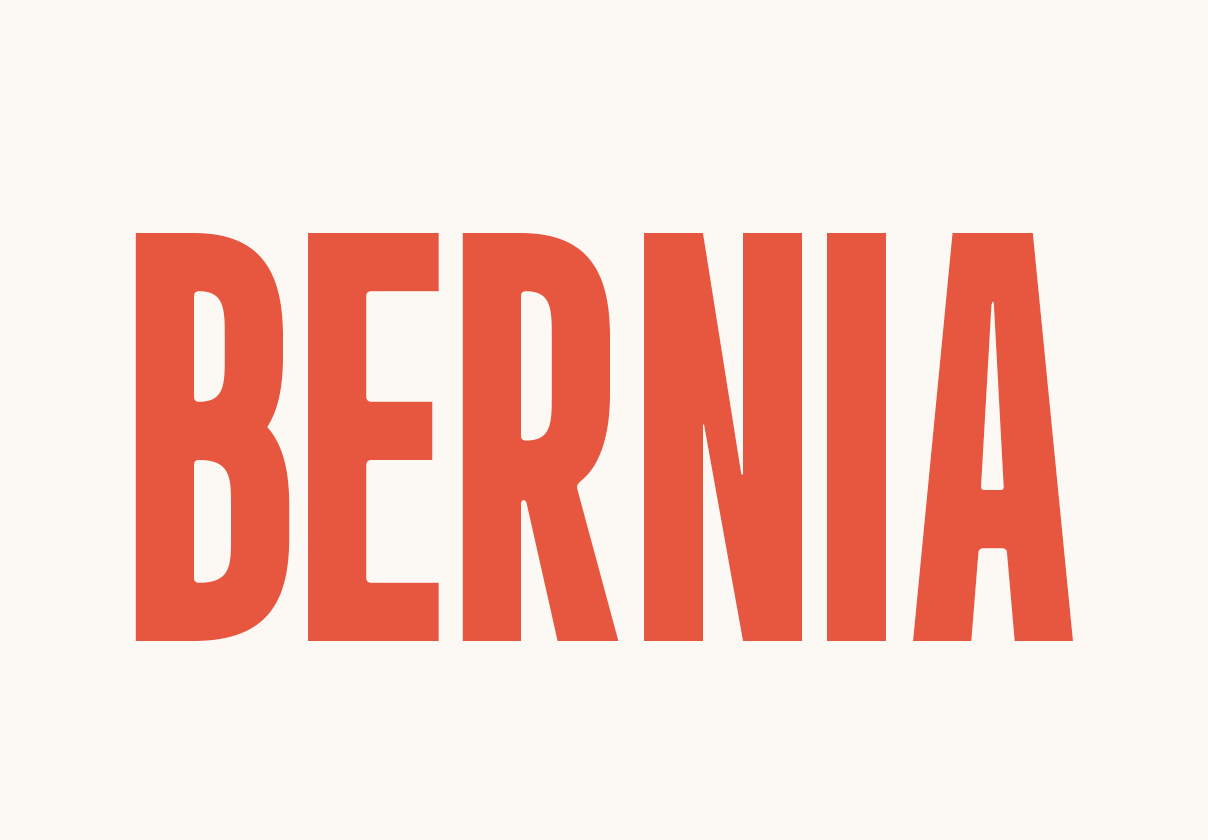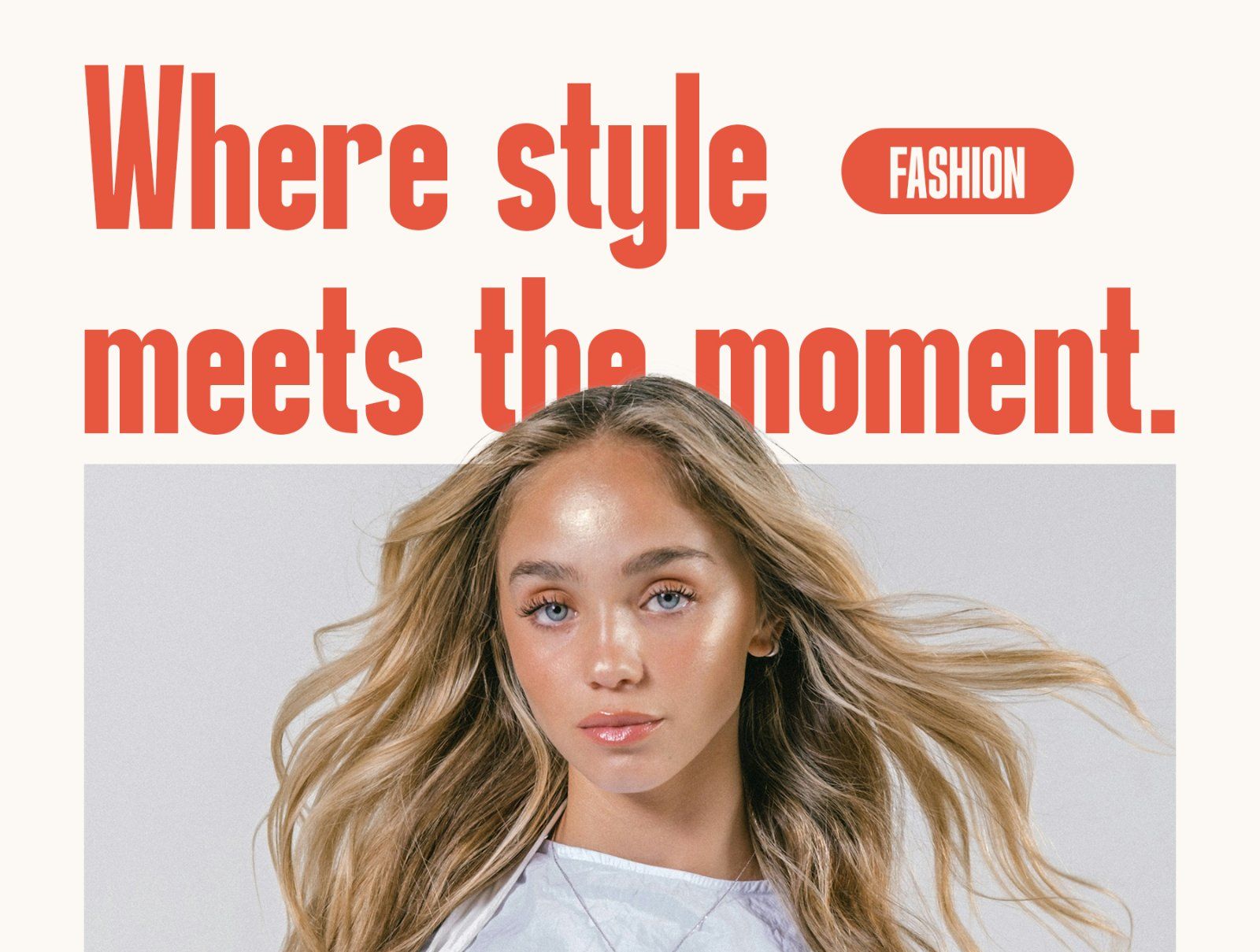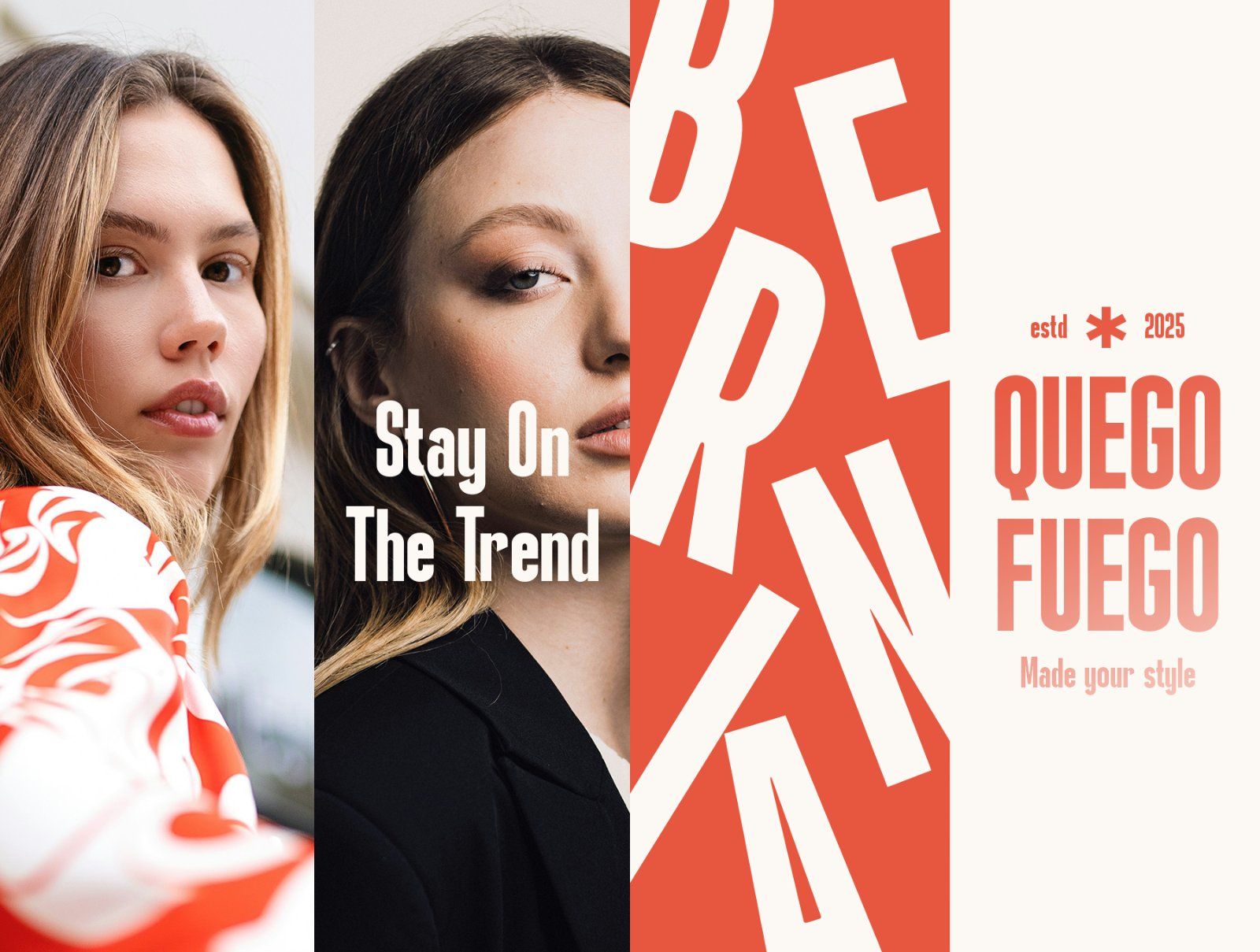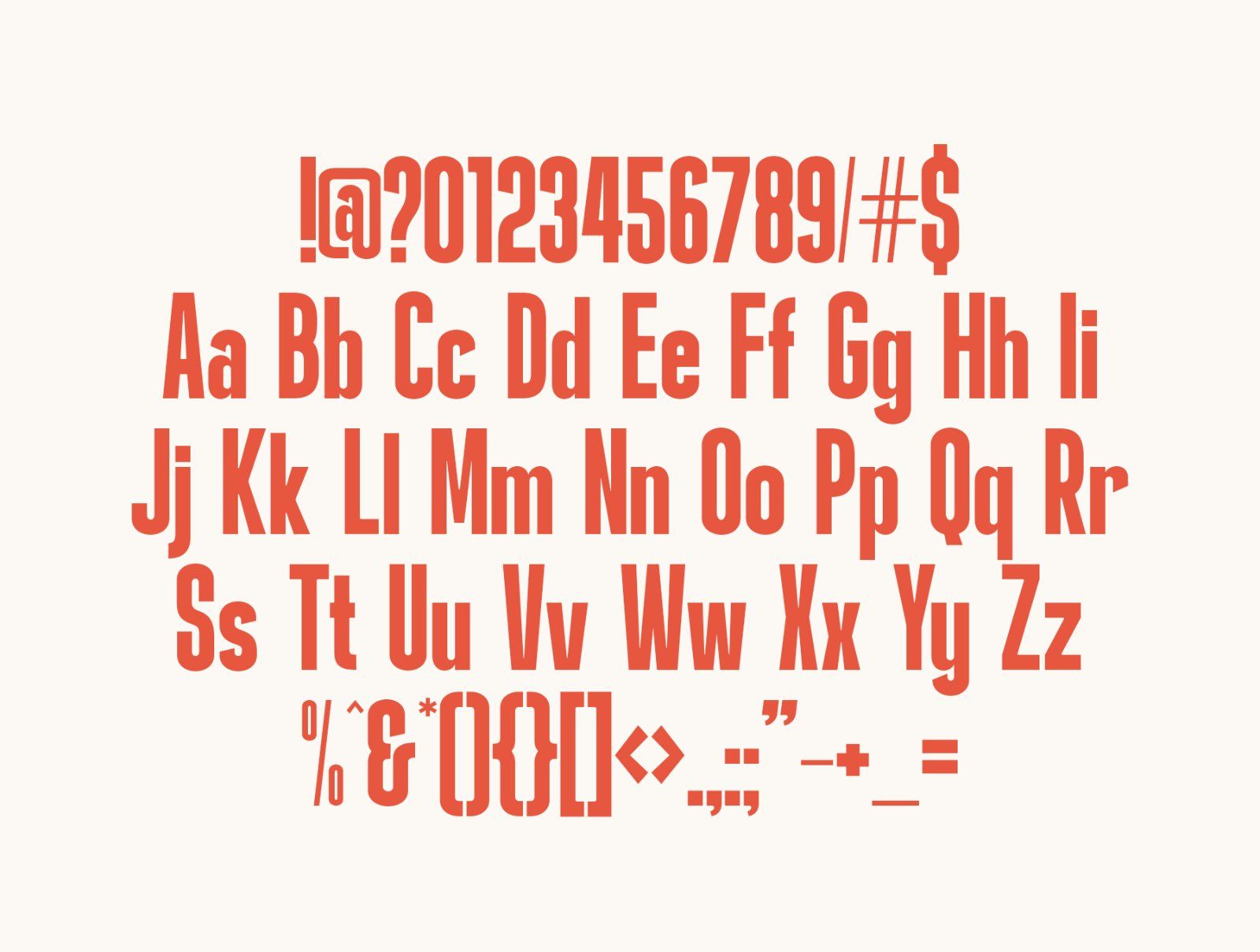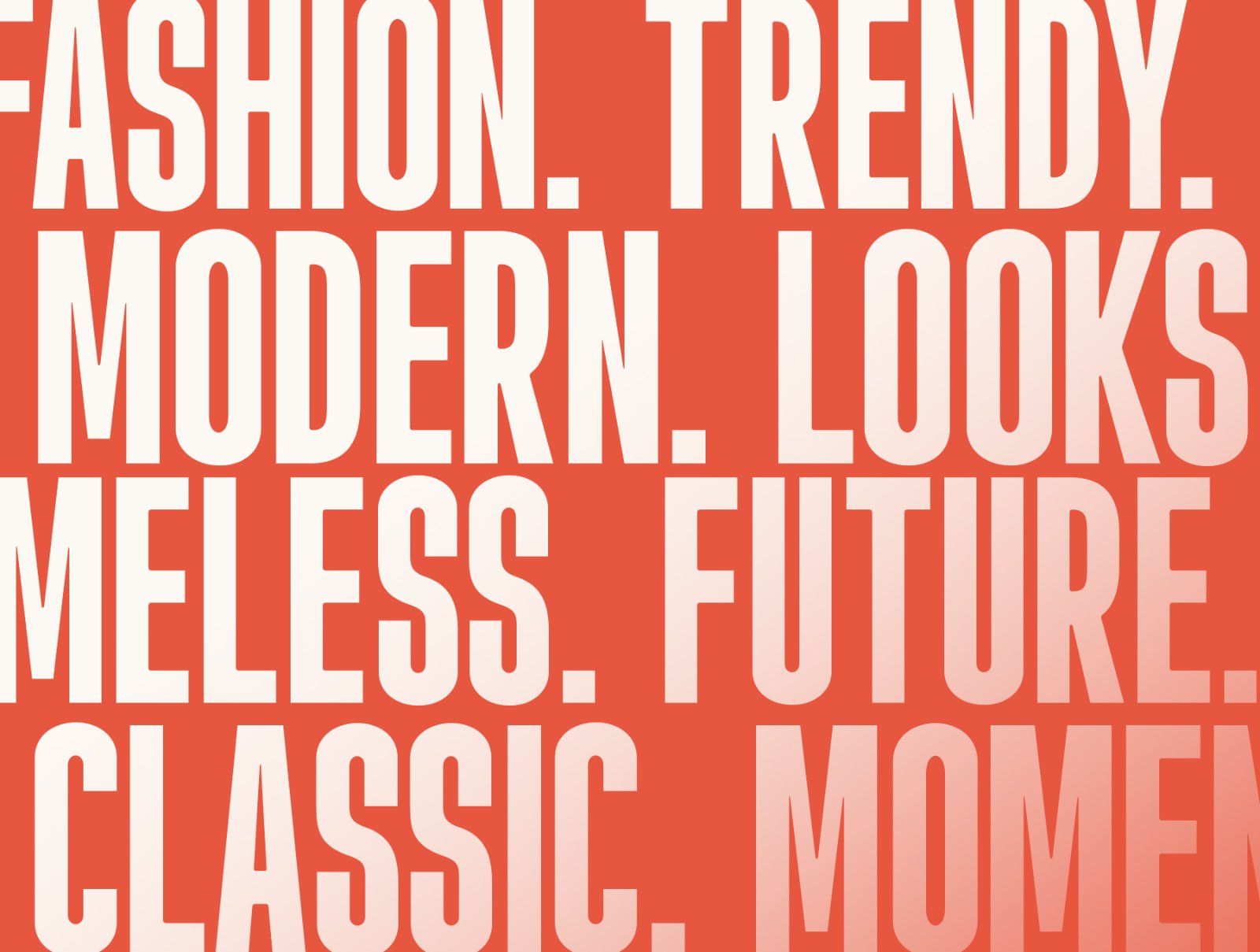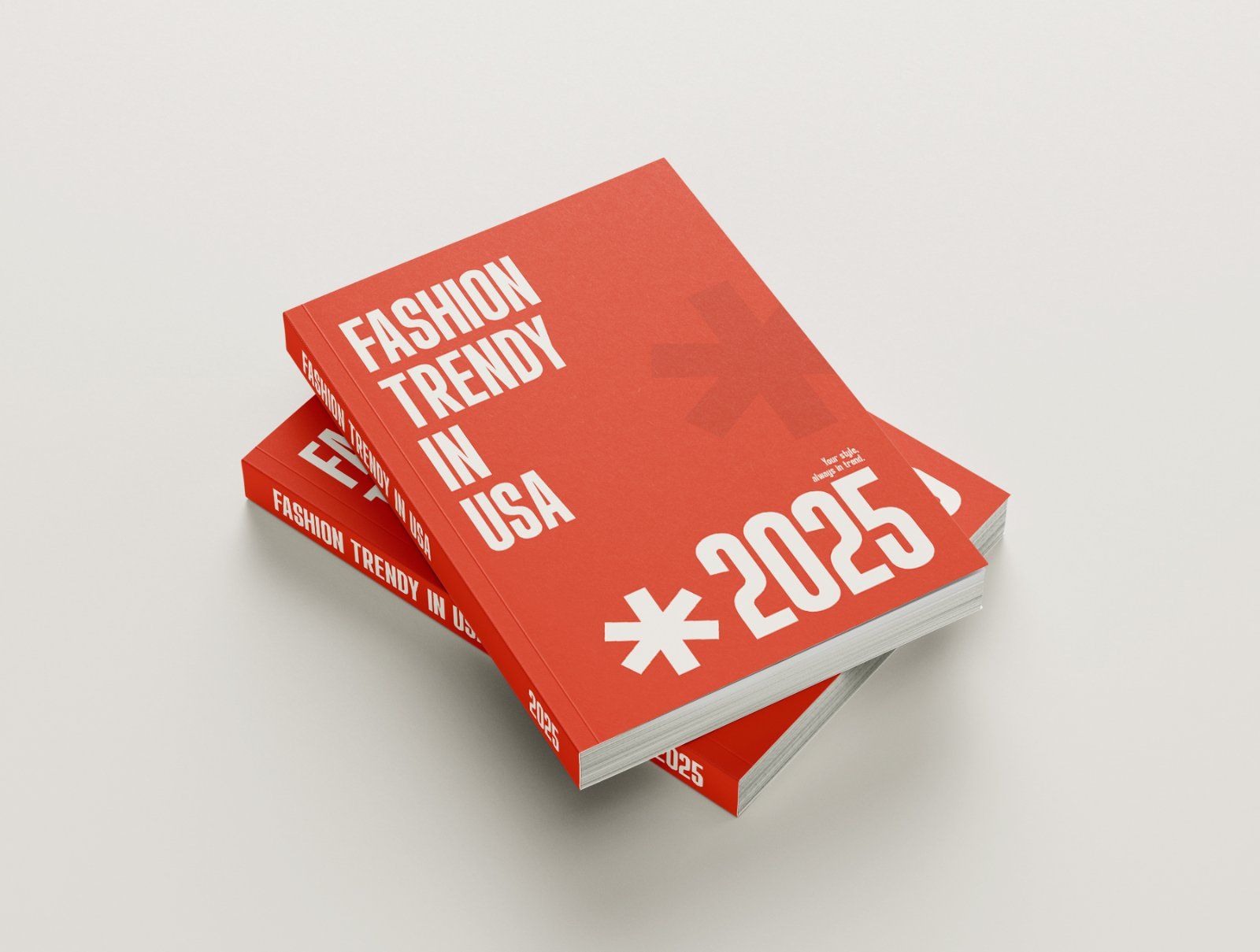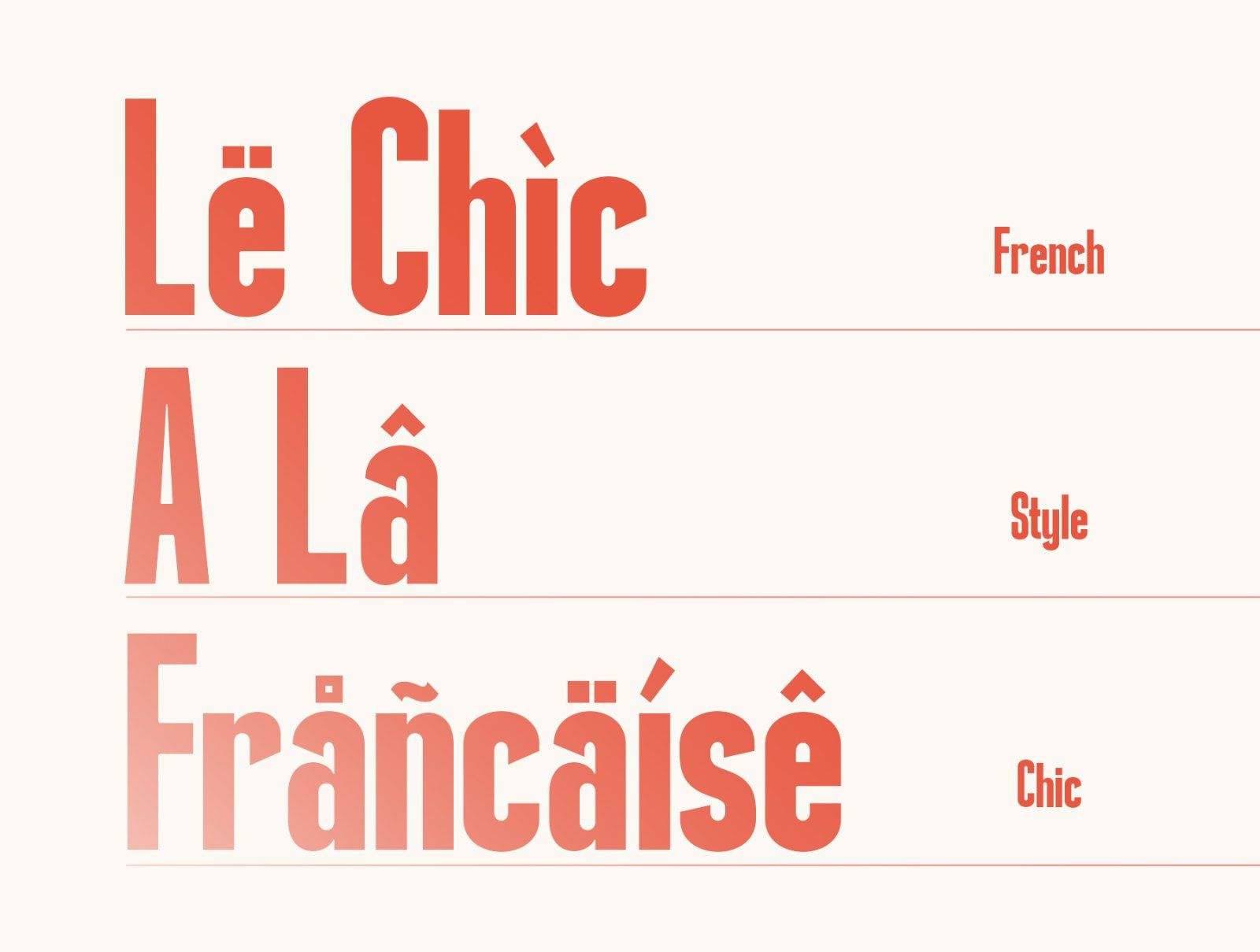
Introducing Bernia, the embodiment of modern elegance in a Sans Serif Font. Finely honed with a bold fluidity and dynamism, Bernia transforms any design into an inspiring masterpiece. This lean typographical marvel thrives in compact spaces, making potent impressions. Whether in greeting cards, packaging, brand persona, or on a poster, Bernia seamlessly blends visual appeal with contemporary chic. Unravel a world of artistic potential and trendsetting style with the versatile Bernia typeface.
BERNIA available with:
• Uppercase
• Lowercase
• Number
• Symbol